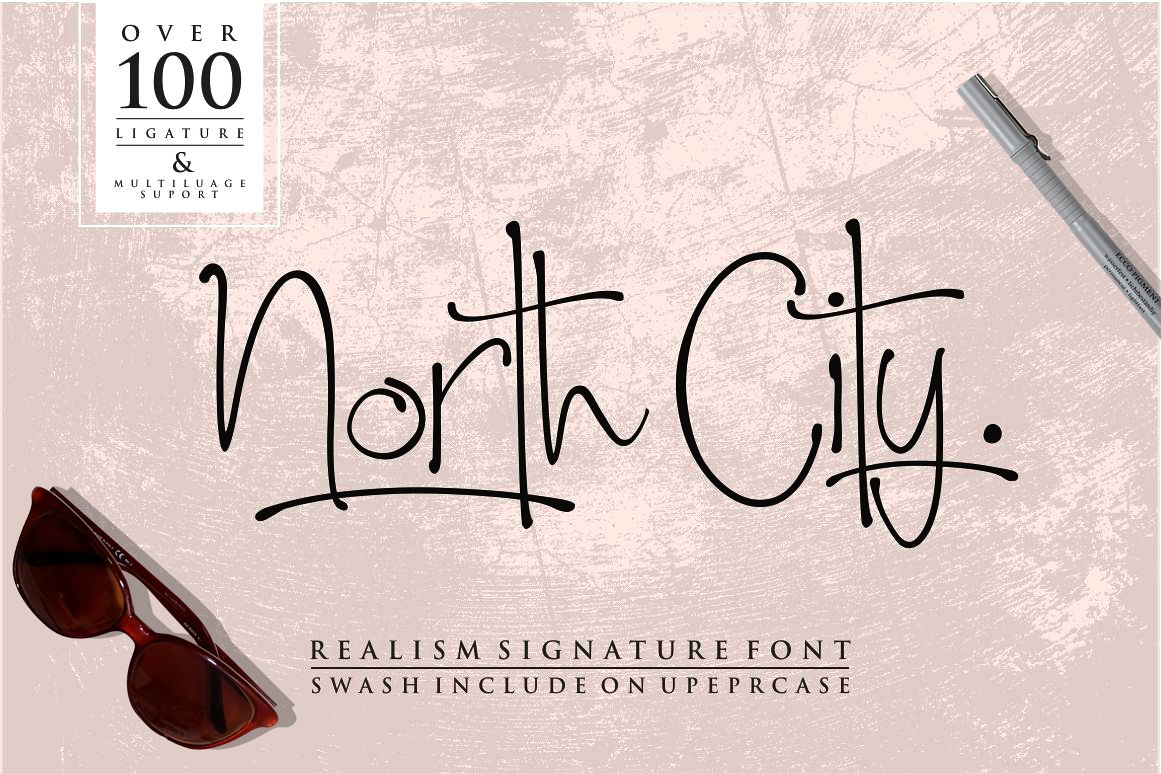
North City
I have had this project in my mind for a long time.
As a graphic designer, we are often asked to design logos in Signature style, but with real and natural handwriting nuances. So, this font is a manifestation of this idea.
This is perfect for BRANDING A-Z FROM THE INITIAL NAME YOU WANT.
You won't get funny, weird, funny logos with this font.
Only Branding Designs are elegant, sophisticated, and real, cool.
To keep the effects of the real hand letter up to a maximum, there are more than 100 ligature (you can see it between the presentation images). When creating a font, we must consider that each letter must be connected to another letter. For example, the letter "a" must be well connected with "l" and "t" and with other letters.
This limits us: we have to start letters from exactly one point and finish at the right second point. So here comes the ligature.
The North City font contains the following ligatures:
ab cb eb mb nb ub ob sb af cf ef mf nf of uf at ct et mt nt ut ut ath oth eth th and many more
Multilinguale Suport
swash include on Uppercase alphabet